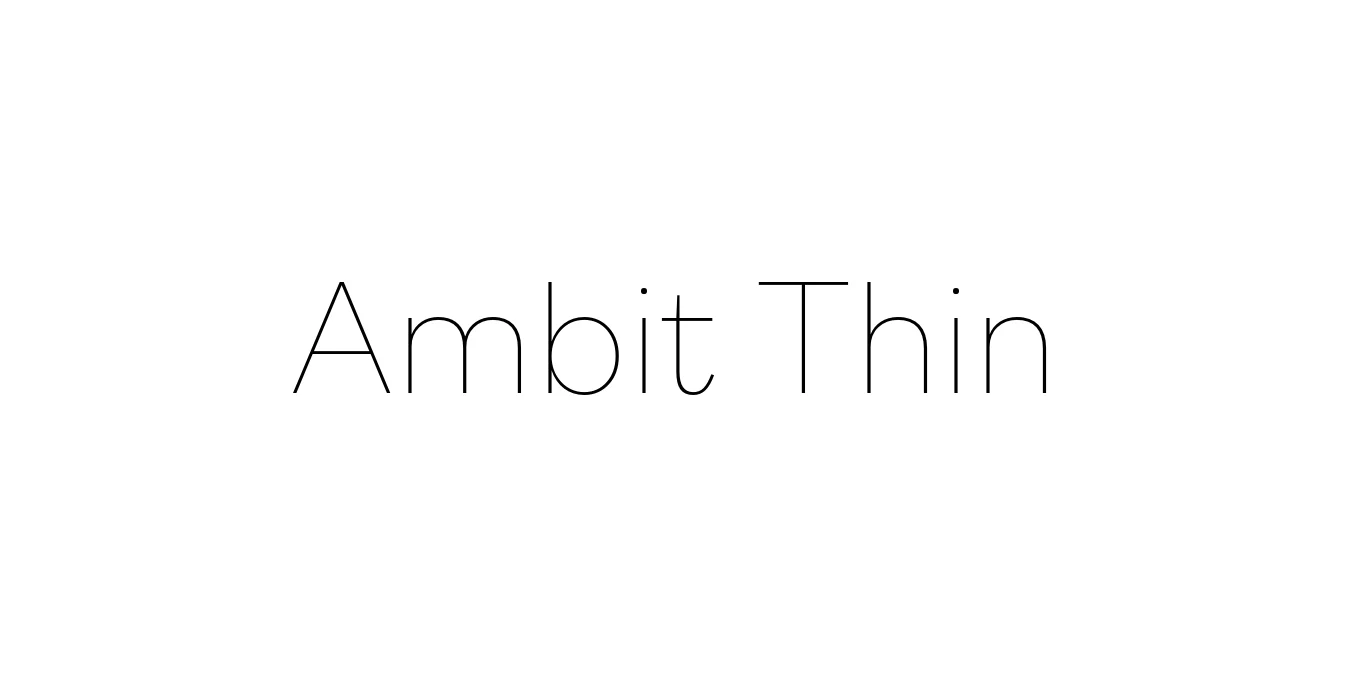
Ambit Thin
Designed by Cobi Levy
Ambit Thin is a modern and eccentric sans-serif typeface designed by Cobi Levy and released through CoType Foundry. It represents a unique intersection between the structural rigidity of early grotesque typefaces and the fluid, circular forms of geometric designs. The font is characterized by its distinctive letterforms, such as the curling terminals and quirky 'f' and 'r', which give it a humanistic yet professional personality.
As part of the larger Ambit family, the Thin weight is particularly striking for high-end editorial work and minimalist branding. Its clean lines and open apertures ensure legibility even at smaller sizes, while its personality shines through in large-scale display applications. It has become a popular choice for designers looking for a typeface that feels both timeless and contemporary.
Ambit Thin Best Uses
Ideal for creating unique visual identities and distinctive logos.
Perfect for sophisticated headlines and layout titles in magazines.
Provides a clean and contemporary look for modern user interfaces.
Excellent for posters and stationery where white space and clarity are prioritized.